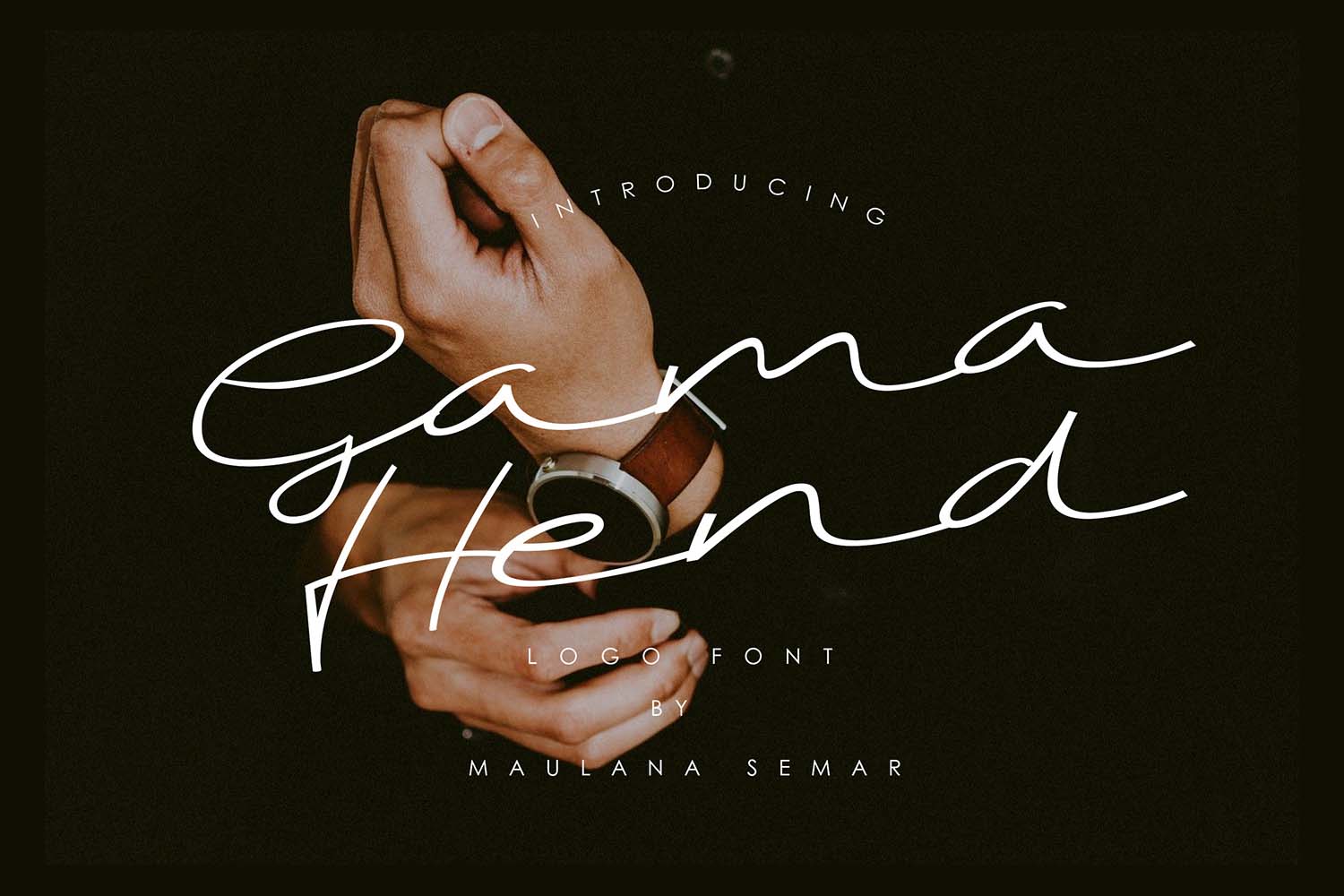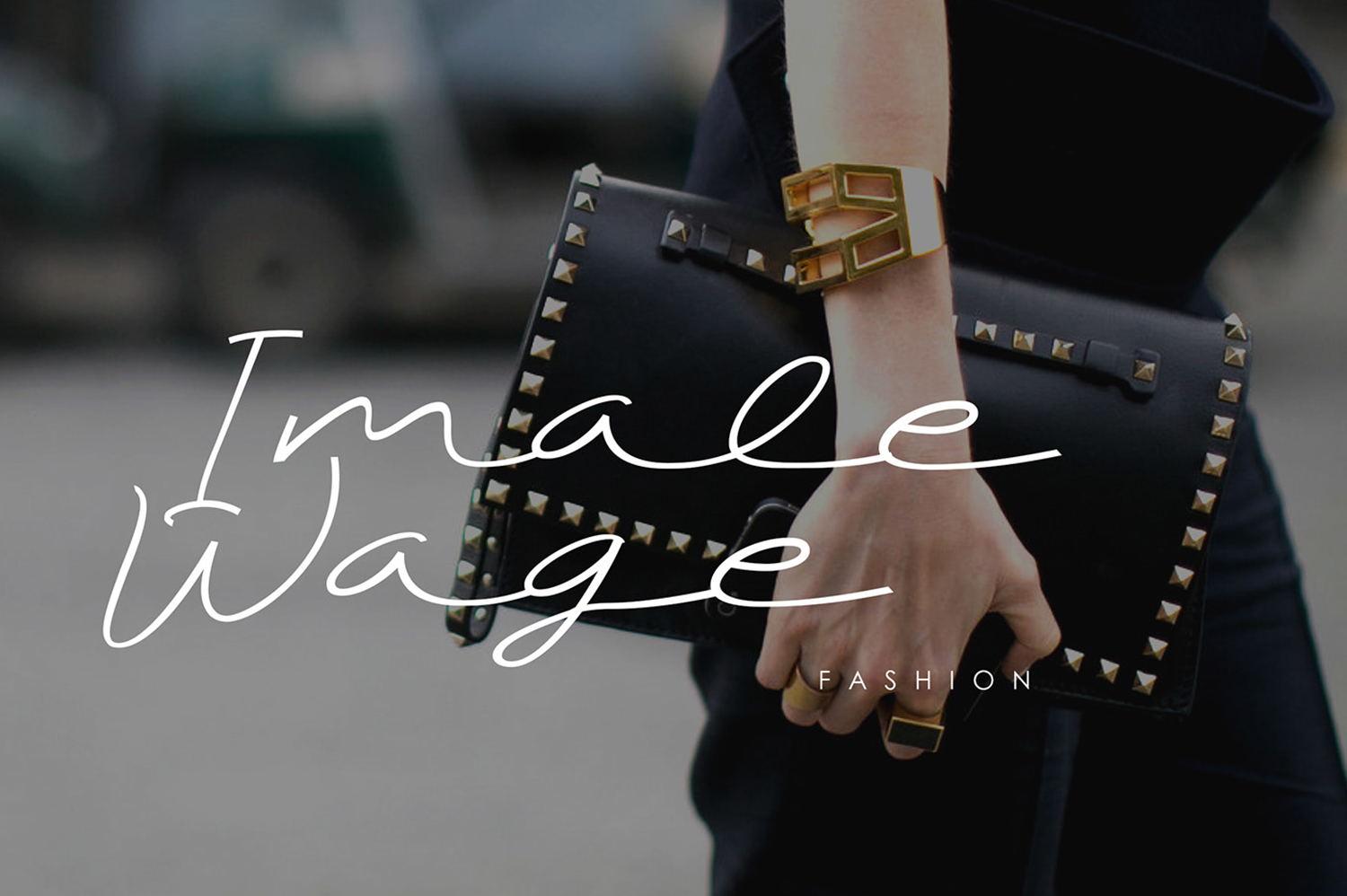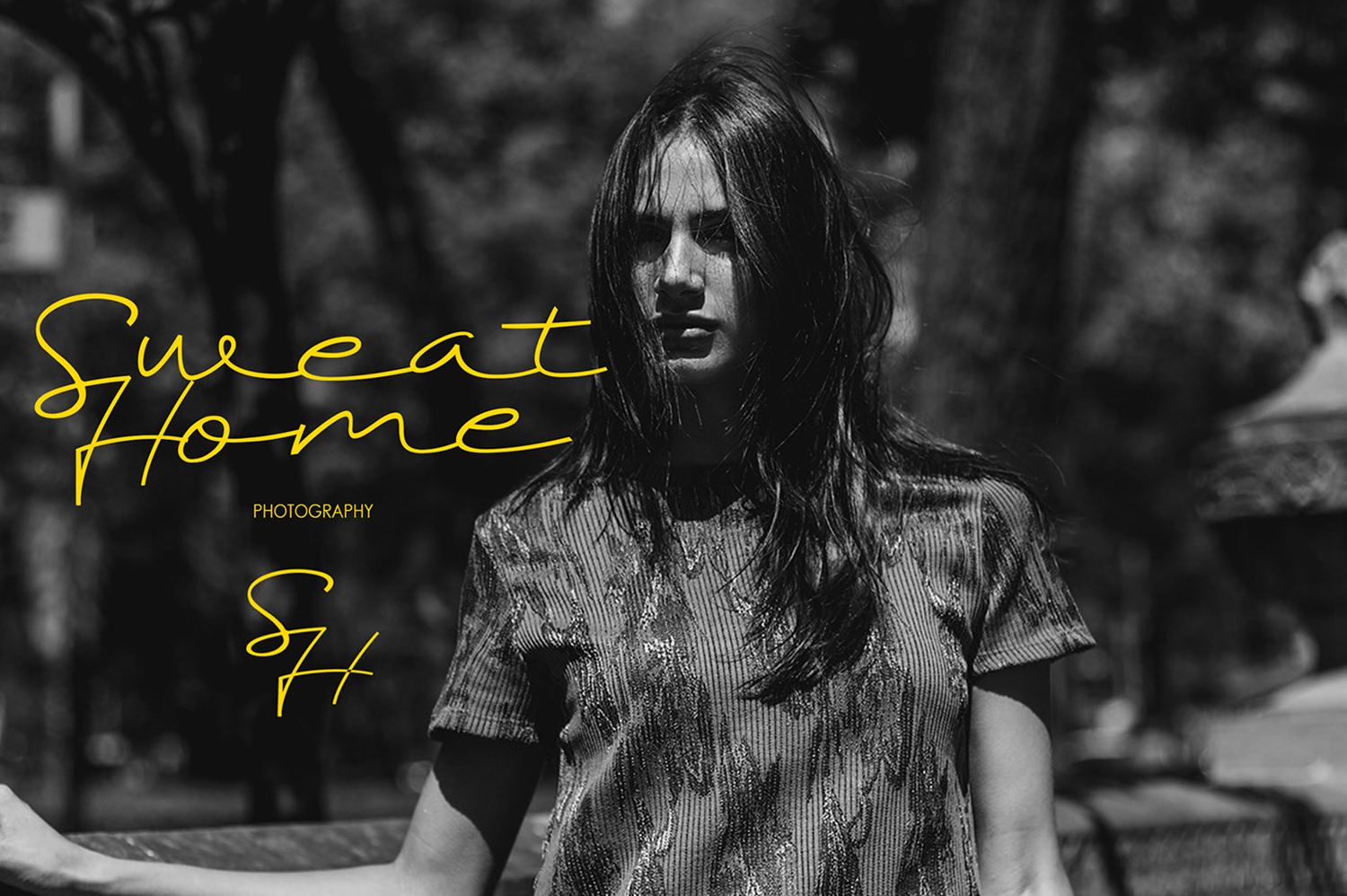
Gama Hend Handwriting Font
Gama Hend Handwriting Font is an interesting beautiful handwritten font that contains uppercase and lowercase letters. this font is very suitable for creating various design projects that require a scripted font. this can be posters, wedding invitations, cards, branding, flyers, prints, and more.